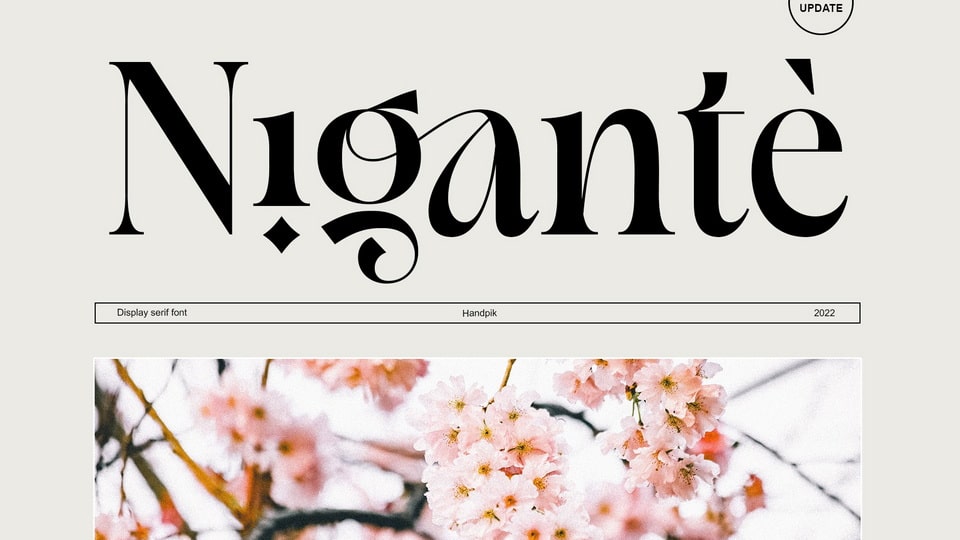
Download Nigante is an elegant and feminine serif display font with a distinct and sophisticated charm. Nigante font is perfect for various projects like logos, branding, editorial and any project that needs an authentic and stylish look.